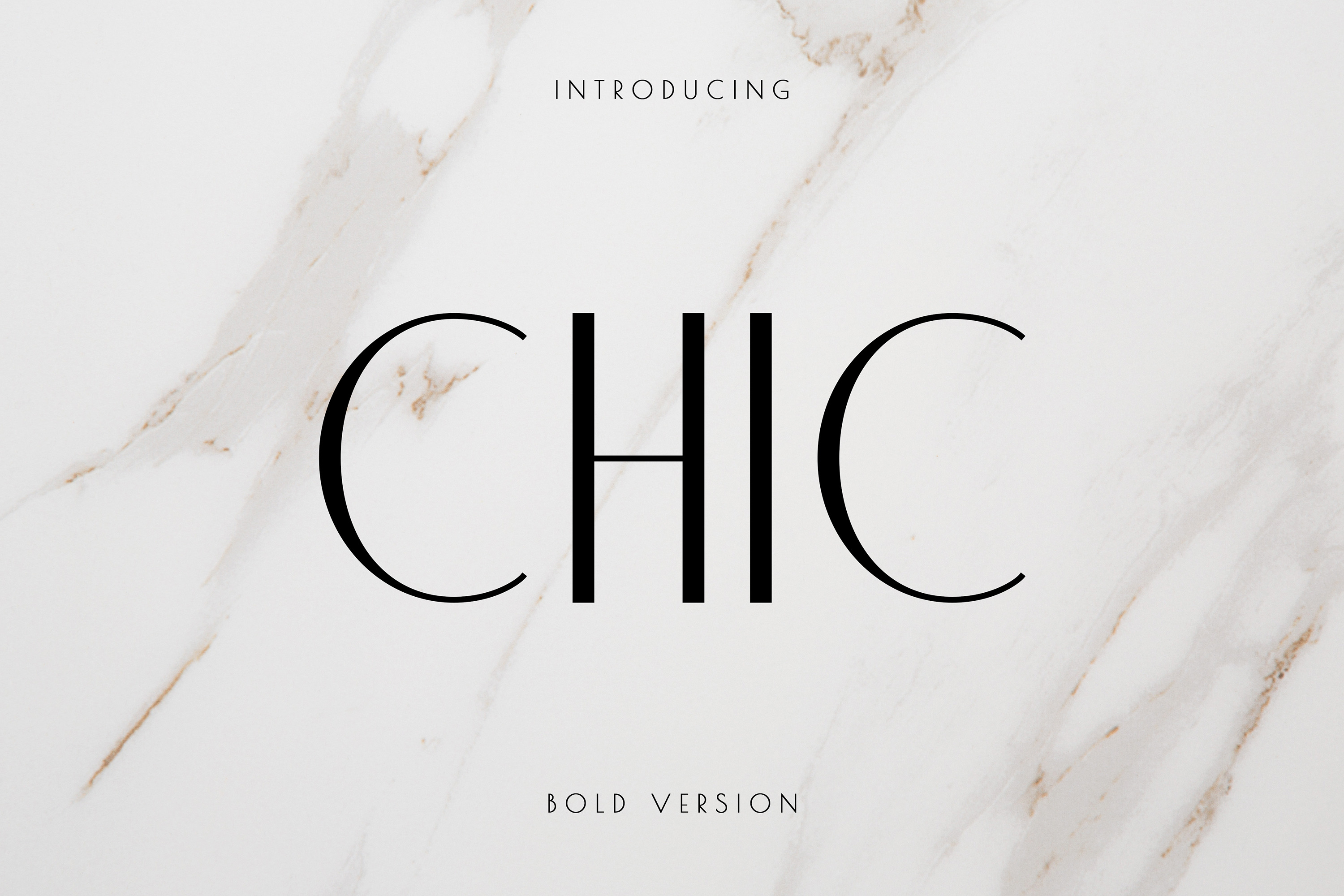
I present to you a bold version of a popular Chic font. Elegant Sans Serif typeface.
Chic Sans Serif typeface that contains upper and lowercase characters, number 0-9 and a range of punctuation and symbols (OTF, TTF, WOFF).